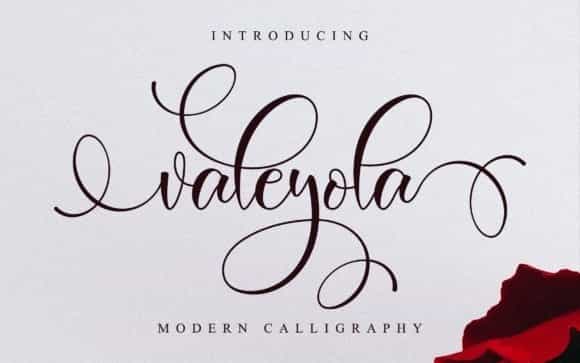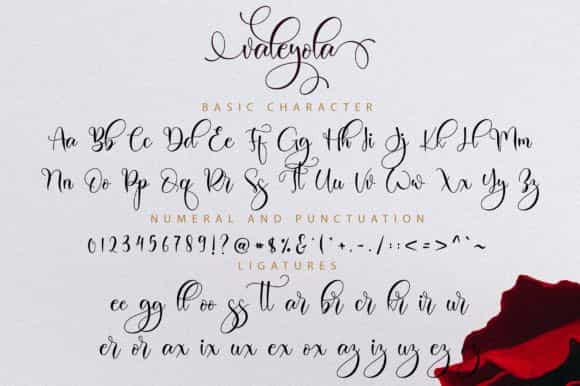
Valeyola is breathtaking and captivating, but also very modern. This all-purpose script font has a lot of uses from greeting cards to headlines and for sure will make your next project romantic. This font is PUA encoded so you can easily use all the beautiful glyphs and swashes. It has a lot of special features including alternate glyphs and ligatures. Be charmed by its beautiful swashes!